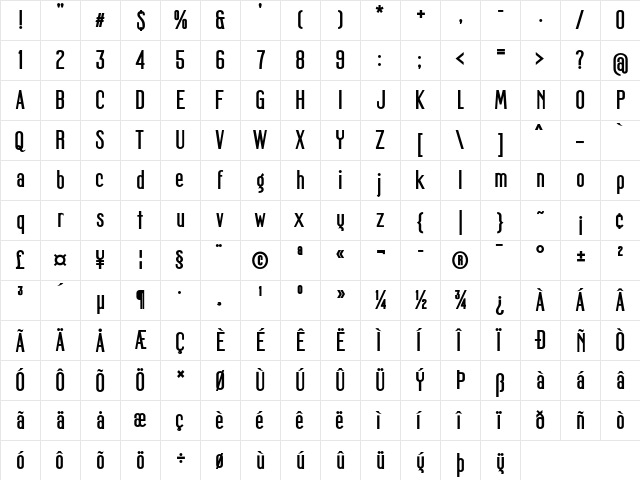
Mager Fat
| Designer | Silvan Kaeser |
Design Context for Mager Typeface
Mager is a composed and adaptable typeface that performs quietly and consistently across a wide range of design contexts.